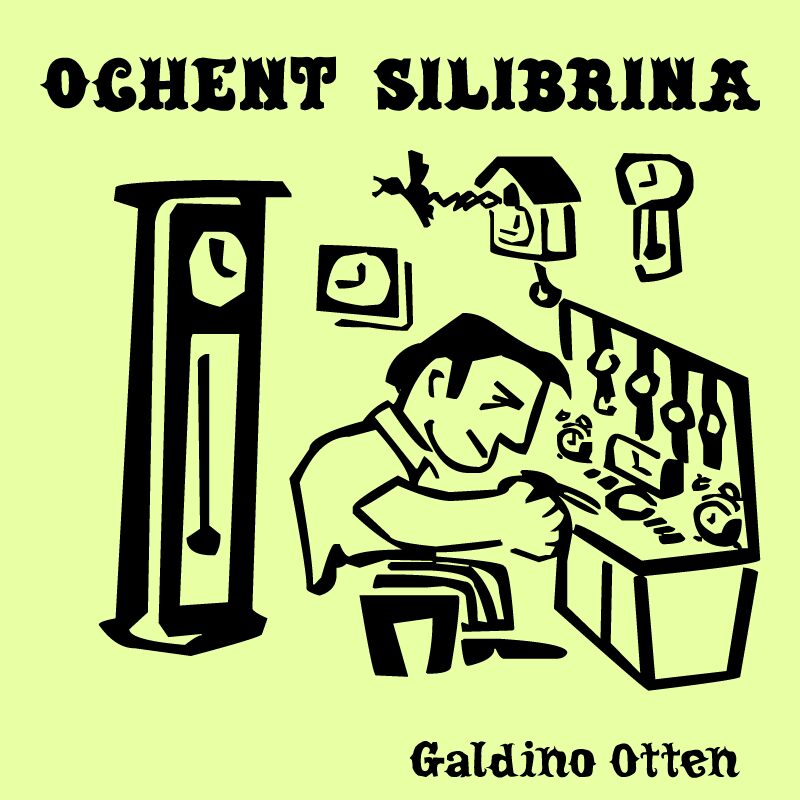
Ochent Silibrina
Ochent Silibrina, crafted by the creative minds at Galdino Otten Fonts, stands as a distinctive dingbat font that merges artistic flair with cultural resonance. Bold and richly detailed, each character within this font encapsulates a narrative, making it a versatile tool for designers seeking to infuse their projects with unique visual storytelling elements.
From ornate architectural sketches to whimsical fish illustrations, Ochent Silibrina offers an eclectic mix of images perfect for adding character and historical undertones to any design piece. Whether for branding, thematic posters, or creative artwork embellishments, this font provides an array of visually captivating icons that can enhance diverse design contexts with its bold and expressive style.